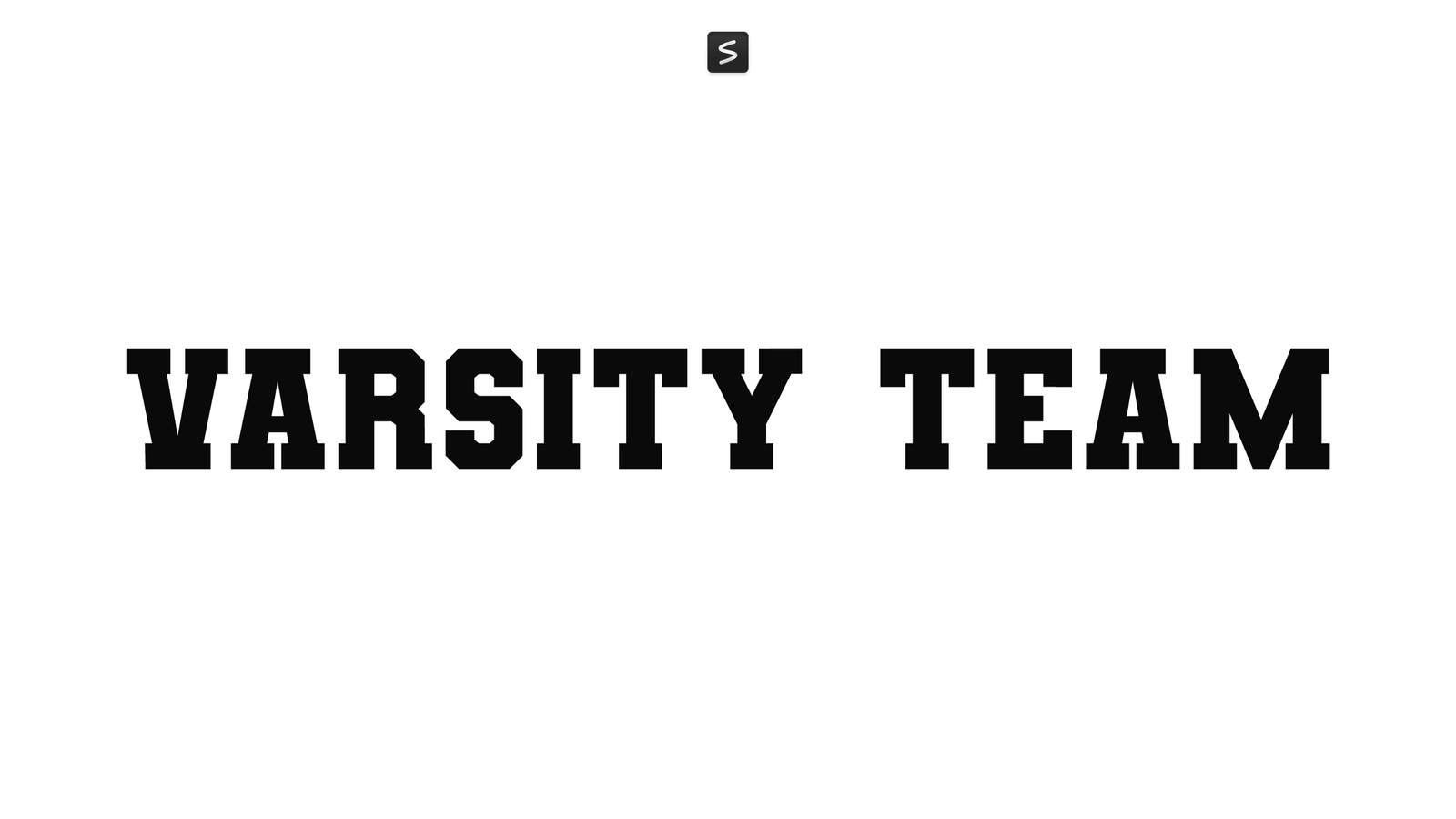
Varsity Team
Varsity Team is a varsity font designed by Don Marciano that channels the look of classic athletic lettering and team uniforms. Its bold, uniform strokes and slightly condensed proportions give it the unmistakable feel of vintage sports graphics, from high school pennants to old gym signage.
The letterforms are sturdy and straightforward, with clean lines that read well at large sizes. This font works naturally in projects that need an authentic athletic or sports-themed aesthetic: team logos, event posters, apparel graphics, or any design where you want that nostalgic uniform-and-bleachers feel.
Whether you’re designing for a school fundraiser, vintage sports merchandise, or a retro-inspired brand, Varsity Team brings an honest, no-nonsense character that feels rooted in real-world lettering traditions rather than digital novelty.